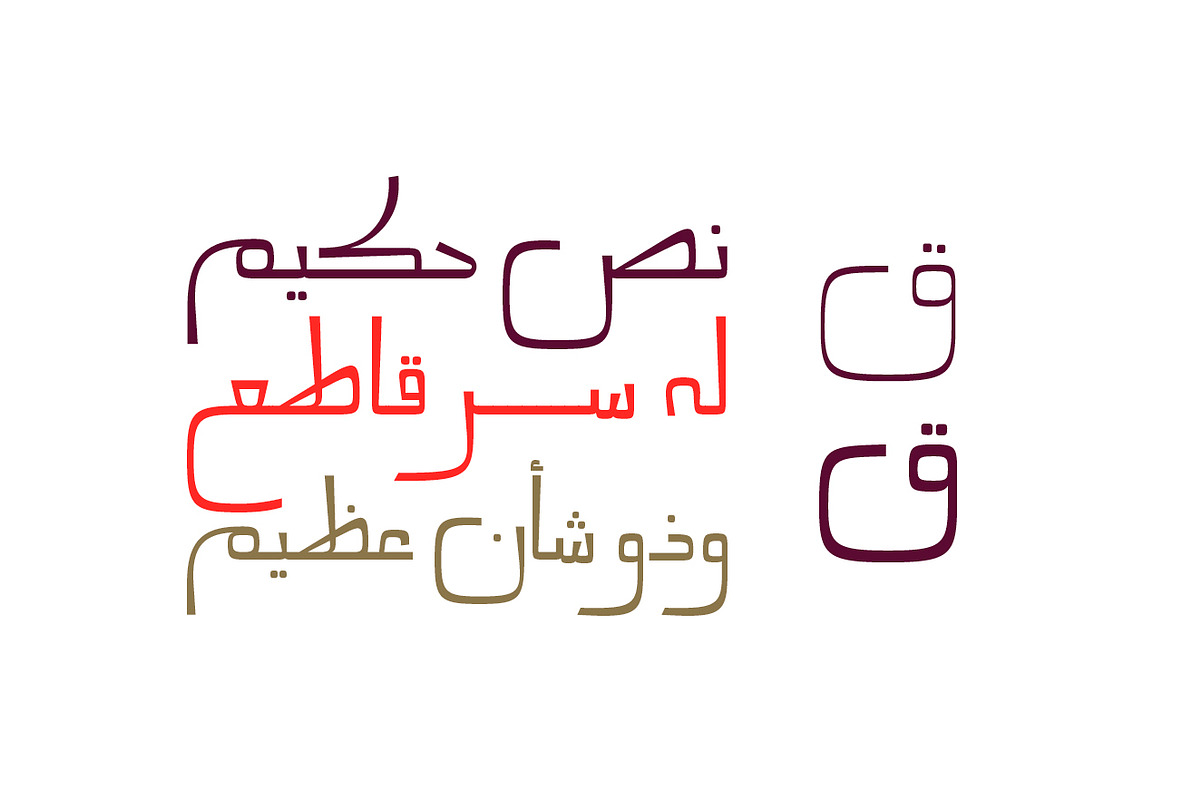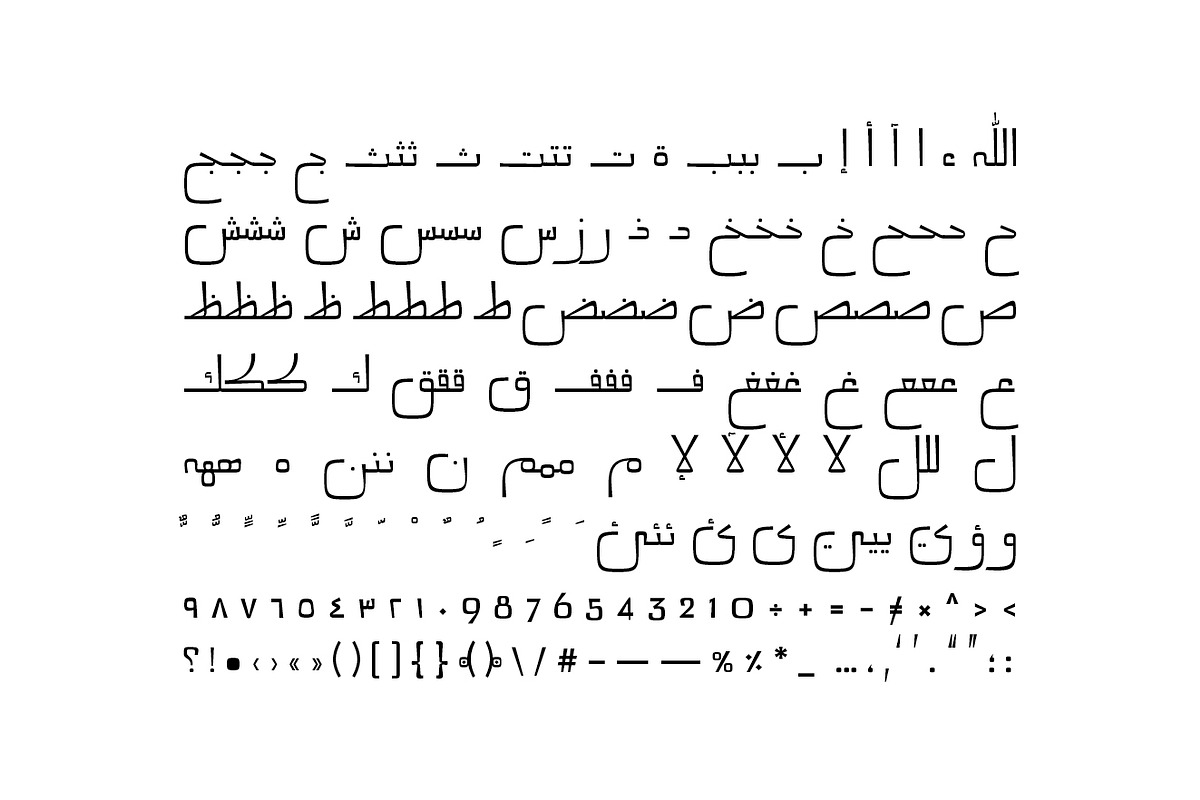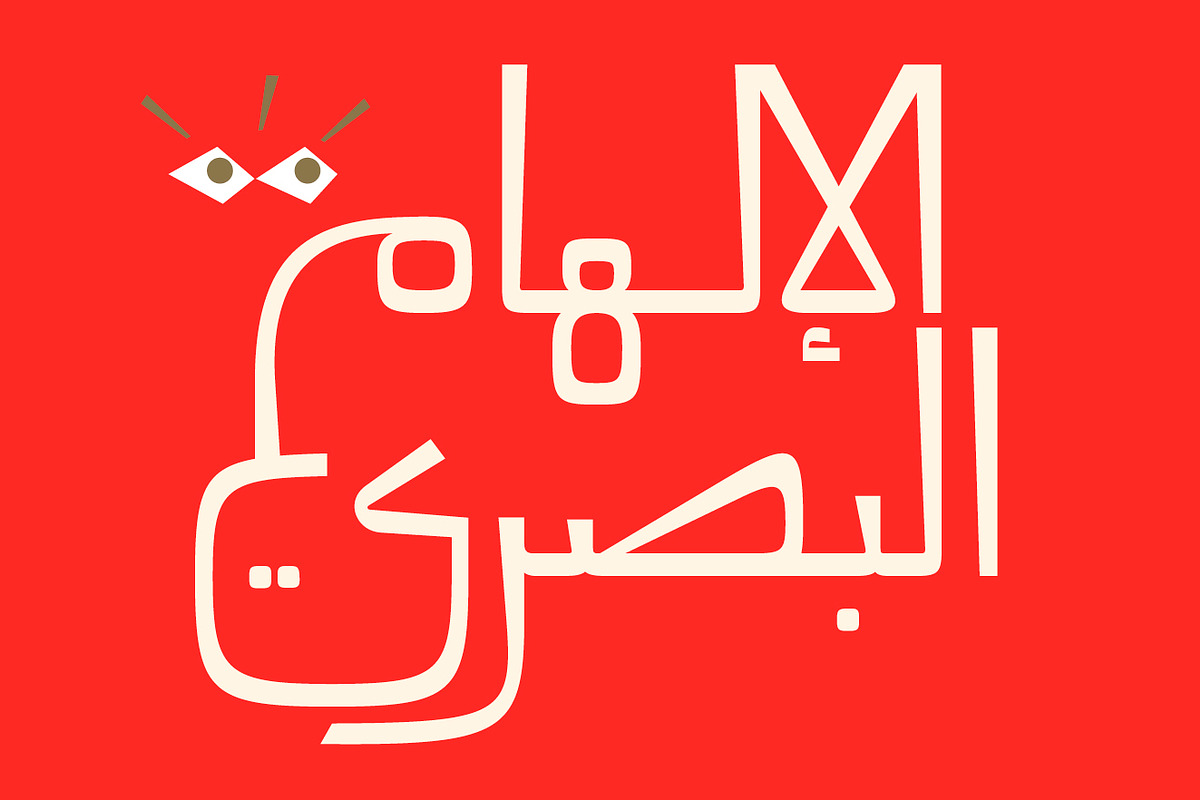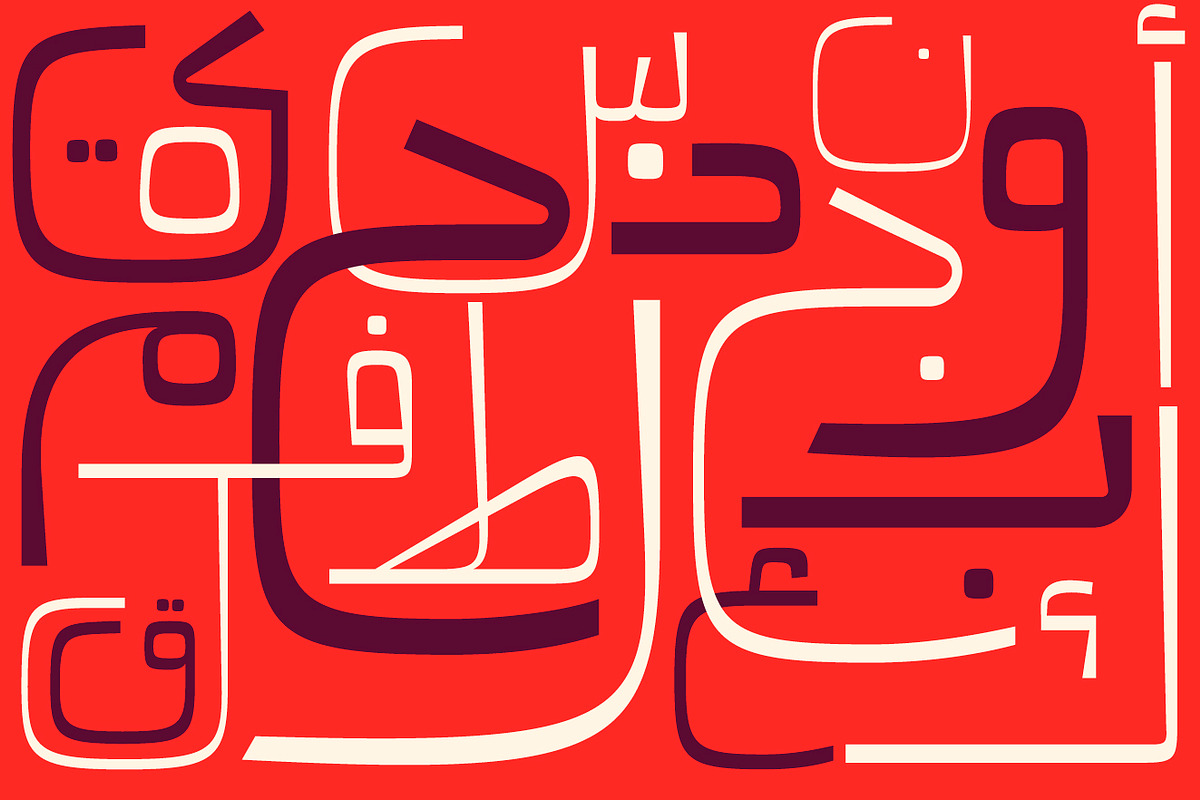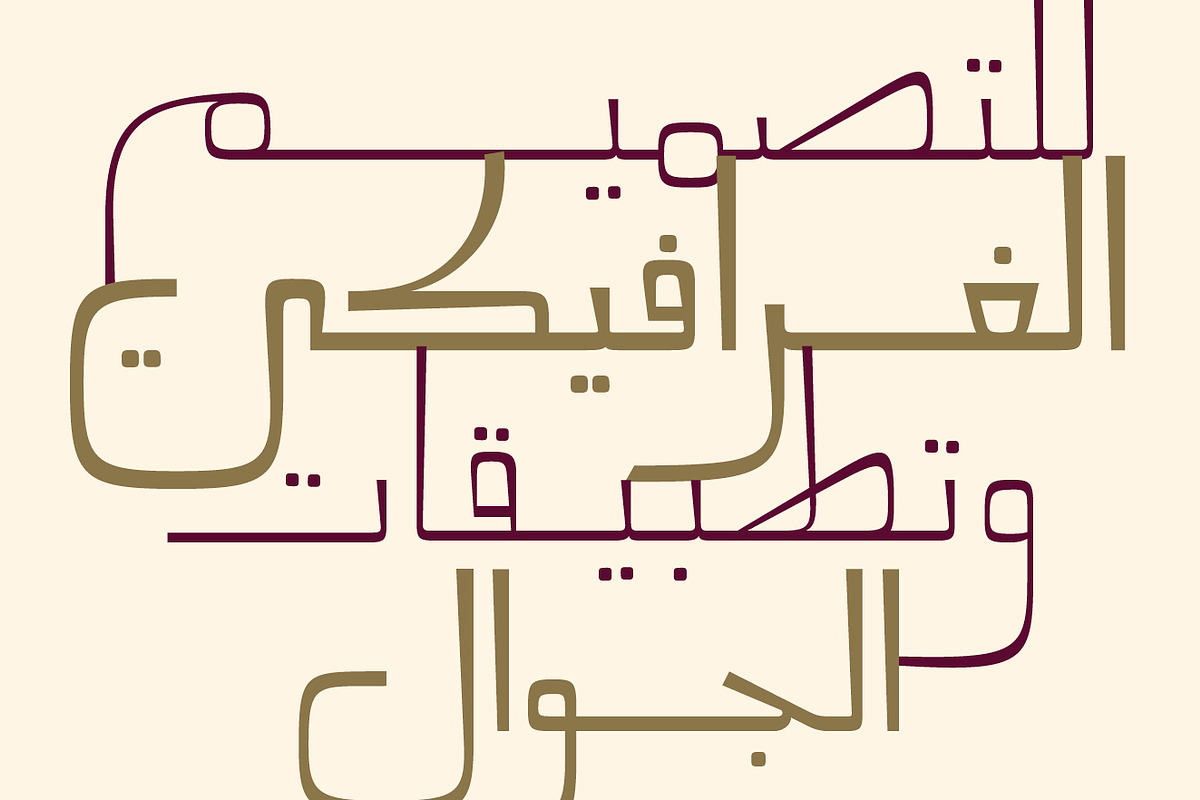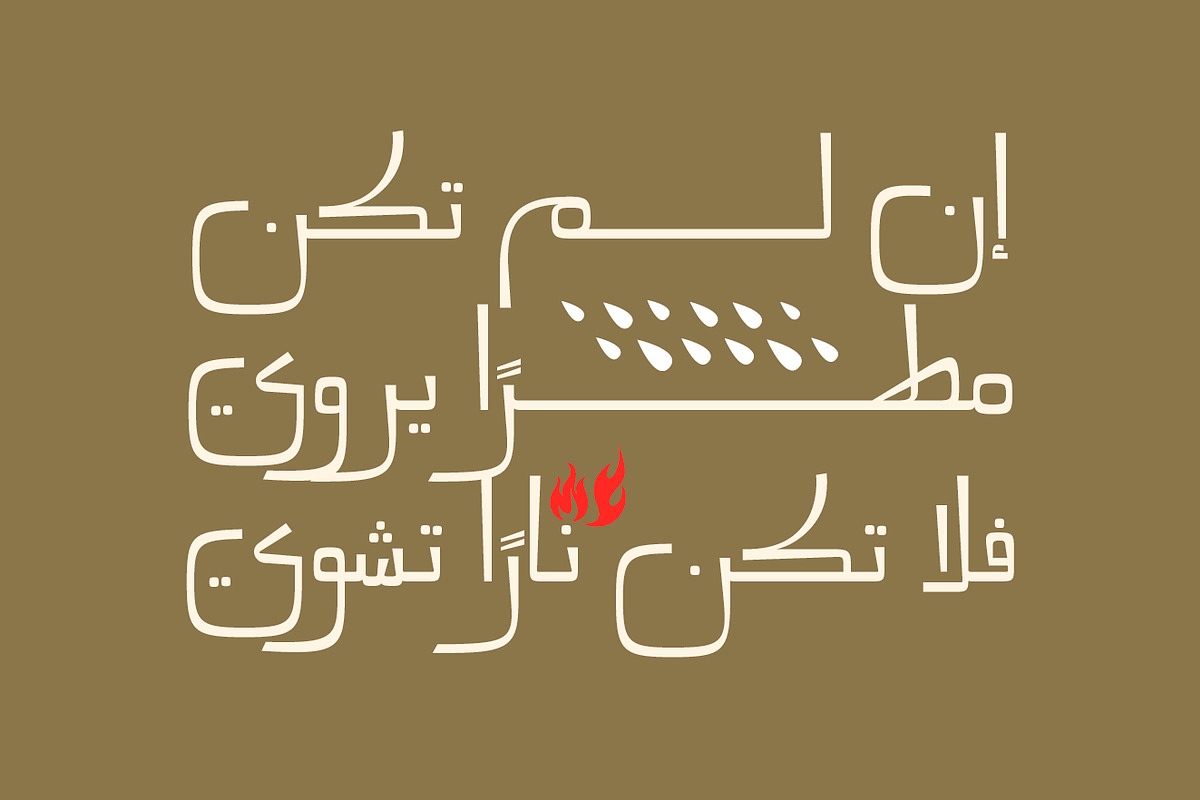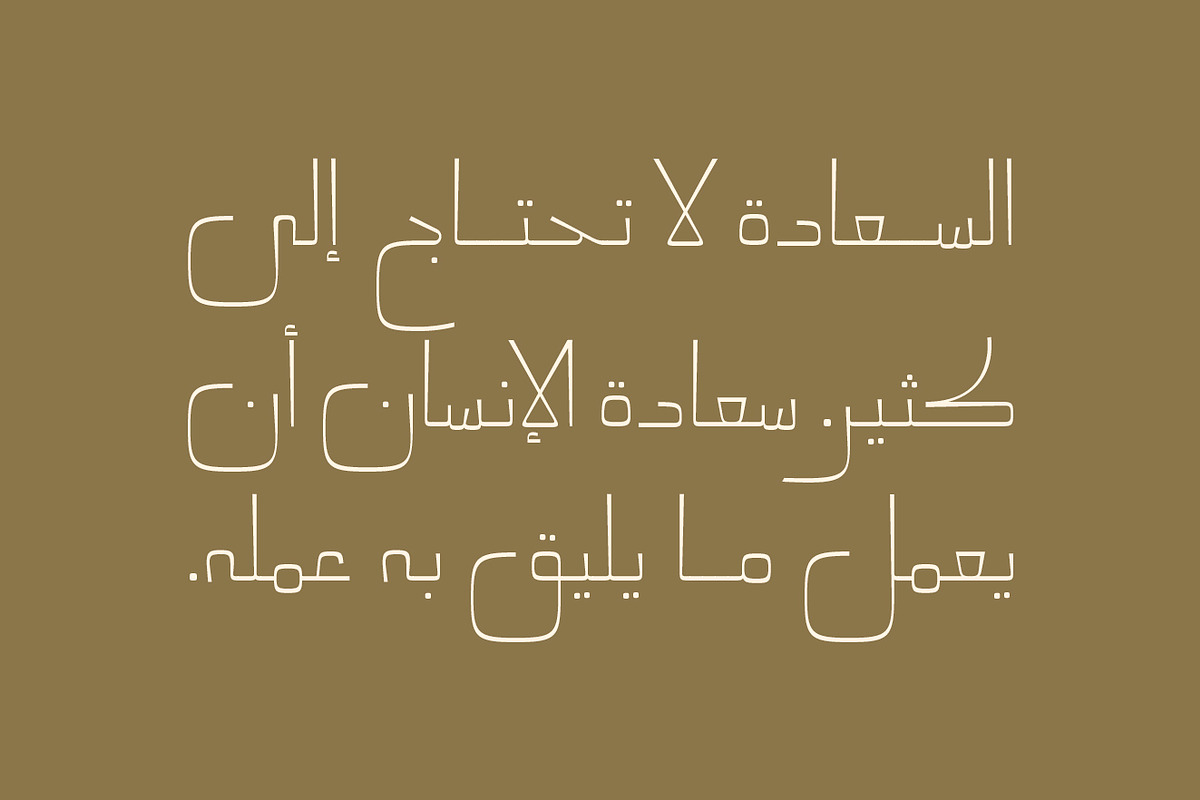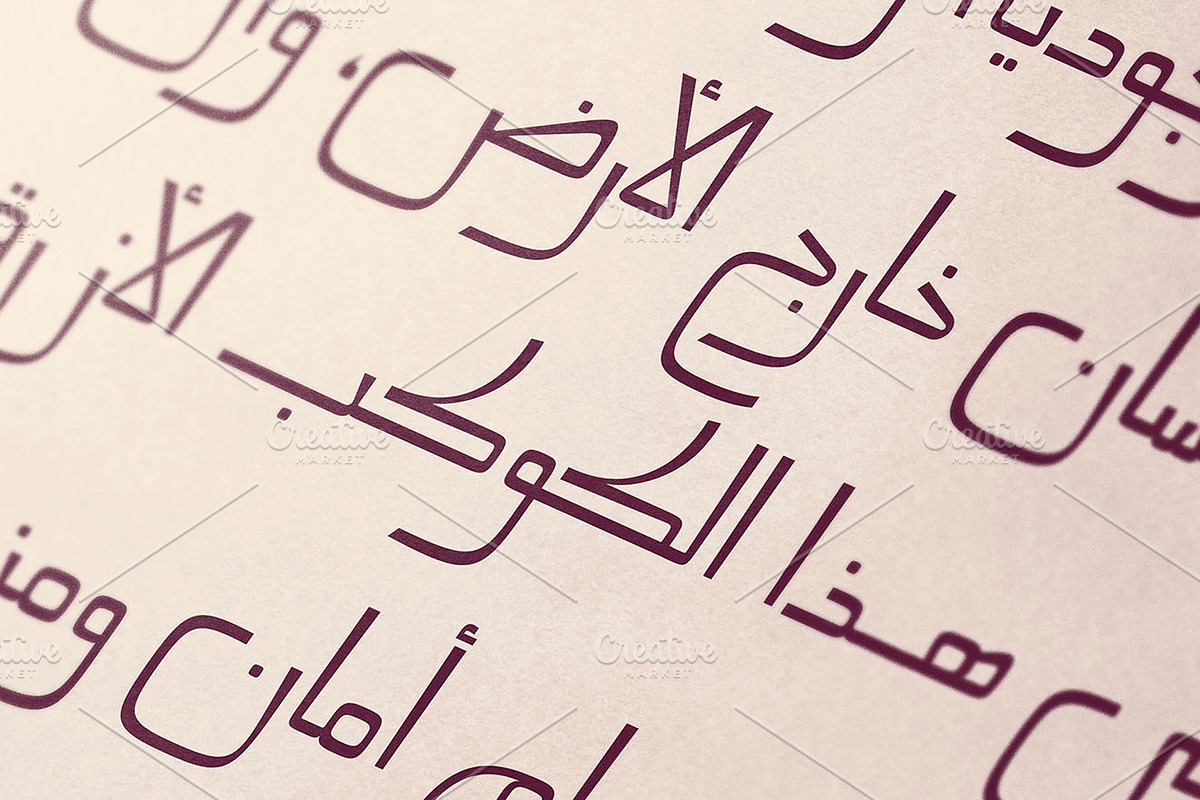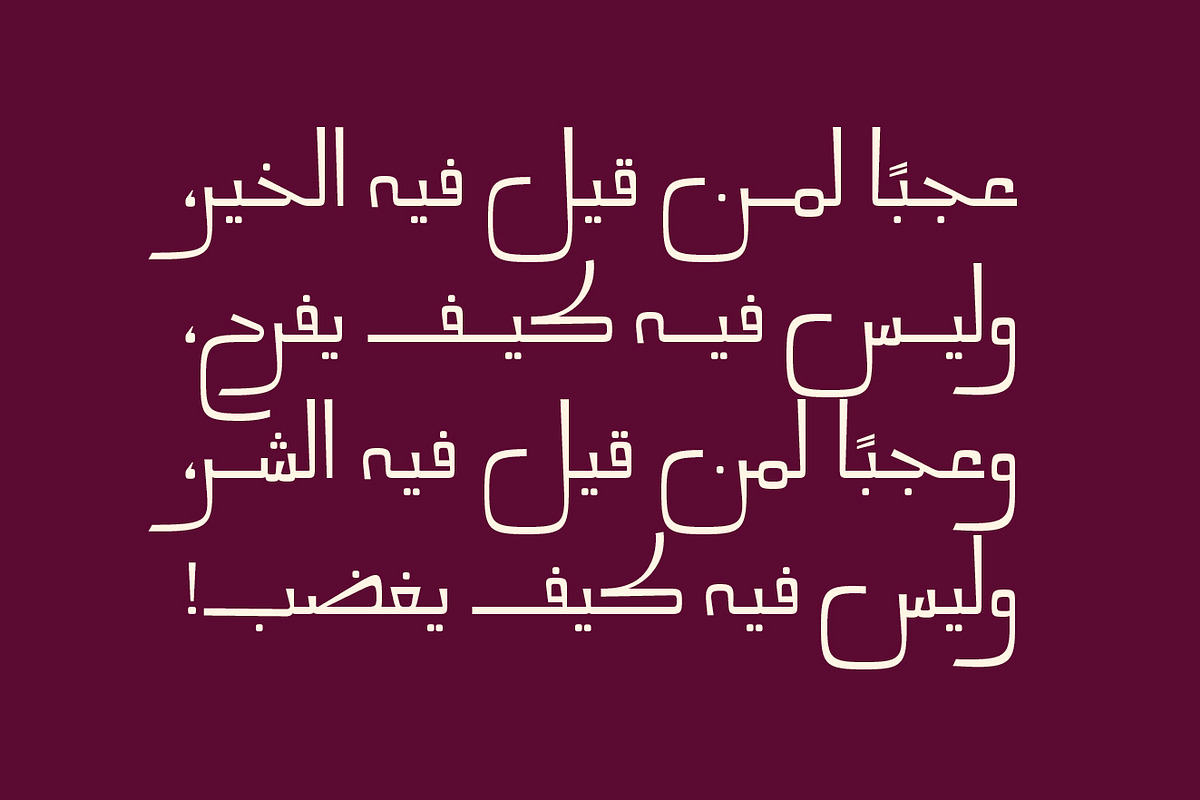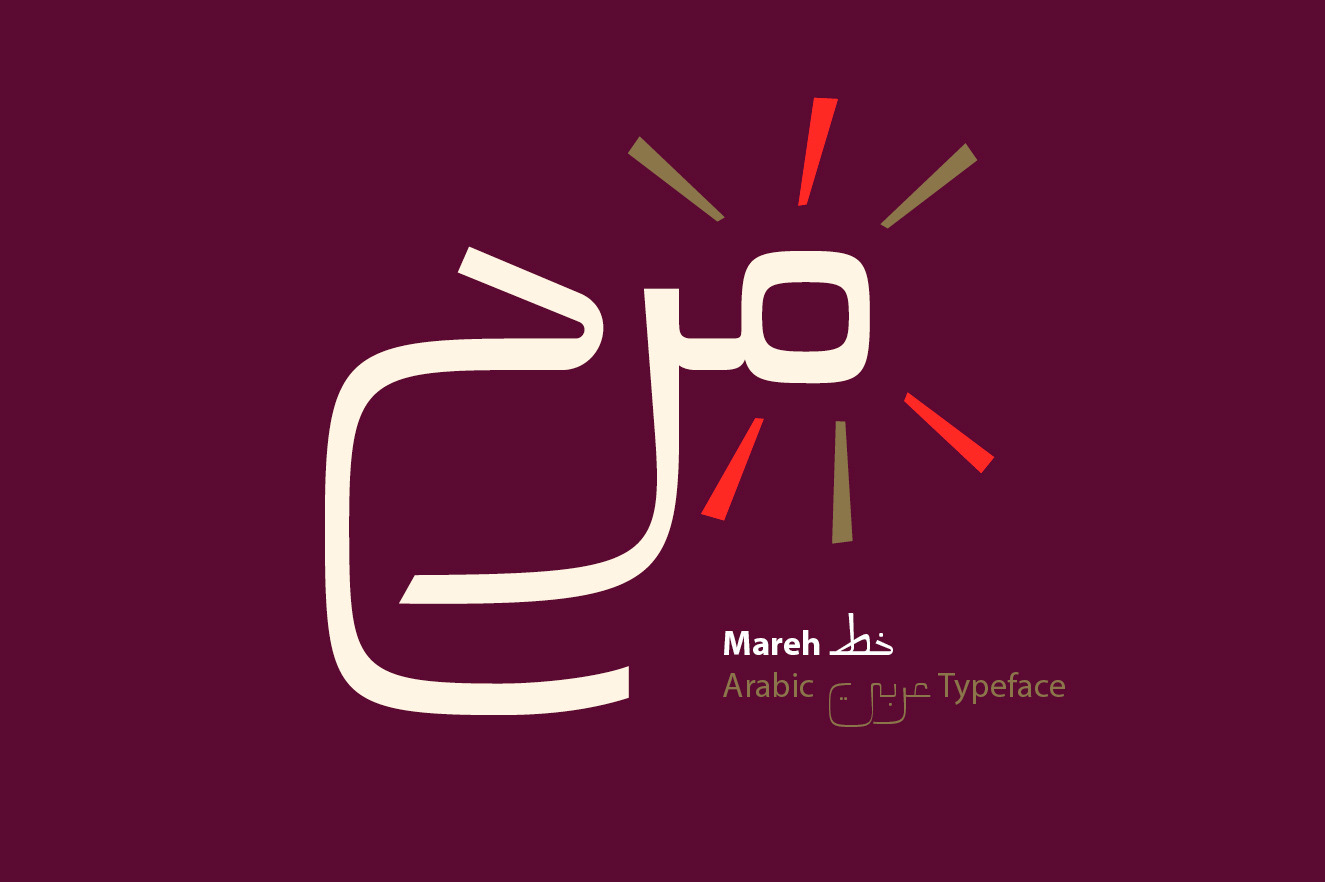
Mareh - Arabic Typeface
Mareh (the Arabic word for 'Cheerful') is an Arabic display font that features prolonged-squared letterform structure. Mareh typeface consists of two weights (Regular and Bold). It suits various range of creative projects including web, publication, packaging, branding and mobile applications.